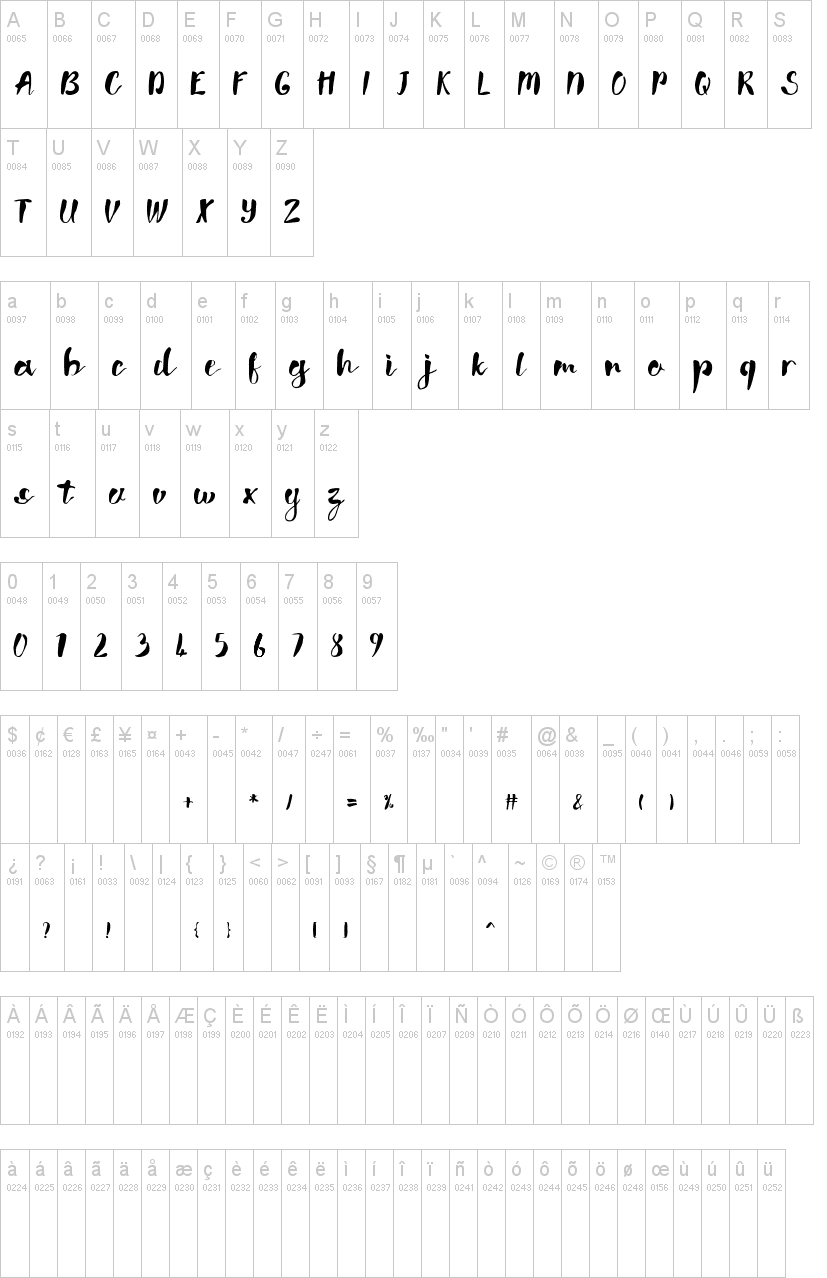
Note of the authorNew font introduction! 'Wish' font is the new script. The WİSH is a quality designed hand lettering typeface. Carefully made. Get inspired from nature for nice and engaging designs. This font will meet your requests and will draw your attention as it is natural and simple. Send me your requests and comments. Thank you for looking, I hope you like it. Please follow me for further studies. Thanks :)